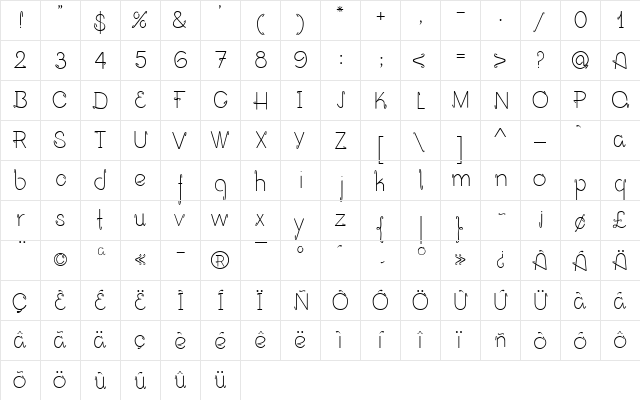
Opalo Regular
Design Context for Opalo Typeface
Opalo takes a measured approach to typography — its balanced proportions and neutral character make it a reliable workhorse for both digital and print work.